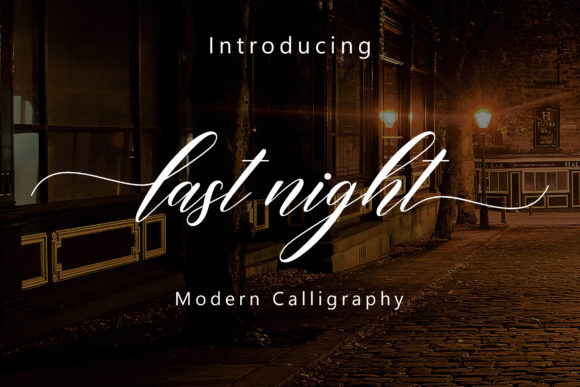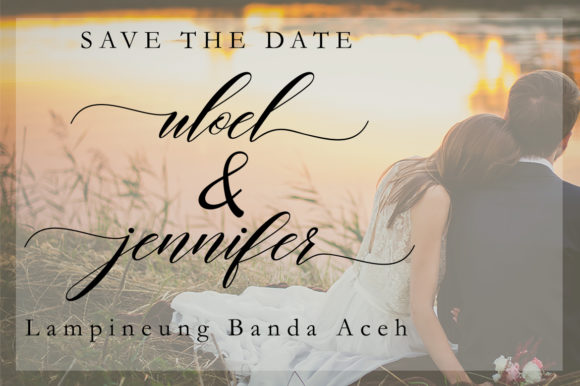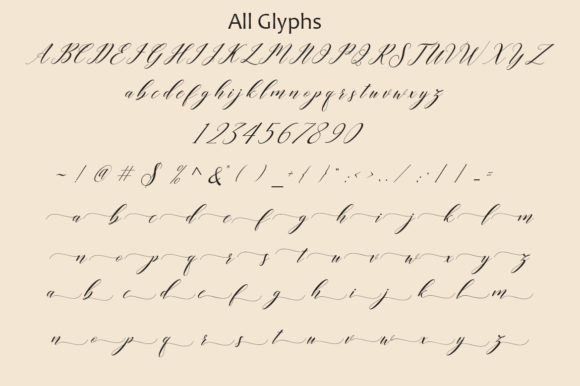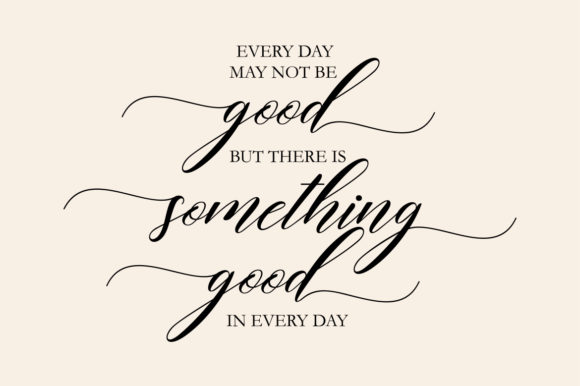
Last Night Script Font
About Last Night Script Font
Last Night is a stunning and elegant handwritten font with a unique charm. Fall in love with its playful, yet delicate characters!